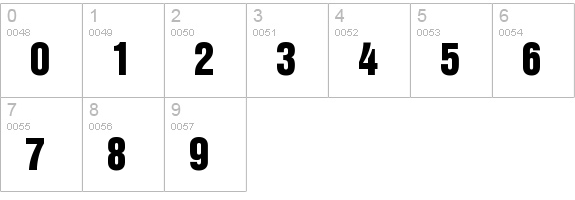
Context Inserat SSi is a modern and sleek font that exudes a sense of sophistication and professionalism. With its clean lines and bold presence, this typeface is perfect for creating eye-catching designs that command attention. The versatility of Context Inserat SSi makes it suitable for a wide range of projects, from branding to editorial design. The best part? Context Inserat SSi is available for free download at FontsMarket.com. This means you can easily access this high-quality font and use it in your projects without any cost. Don't miss out on the opportunity to enhance your designs with the elegance and style of Context Inserat SSi. Download it today and elevate your creative work to the next level.